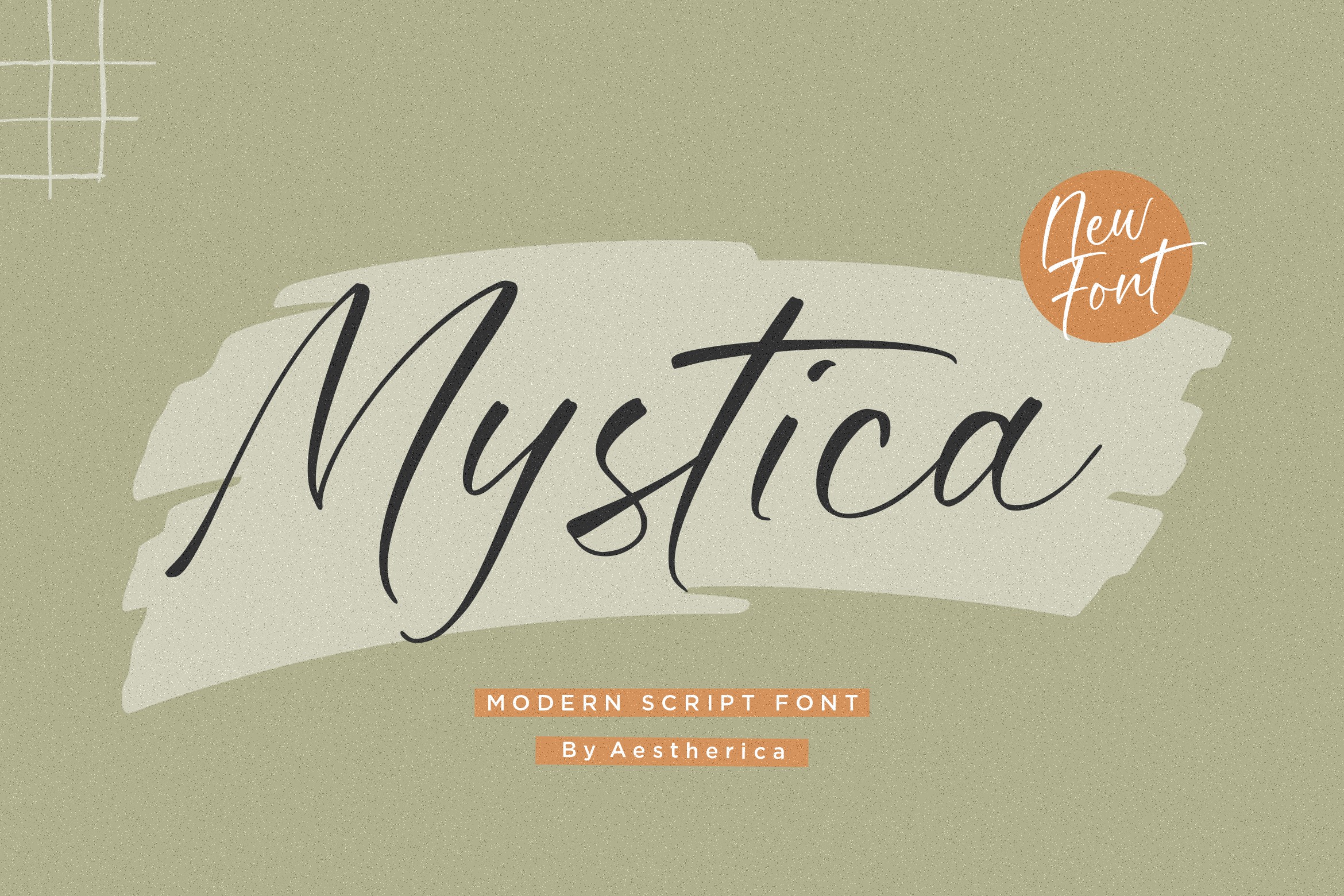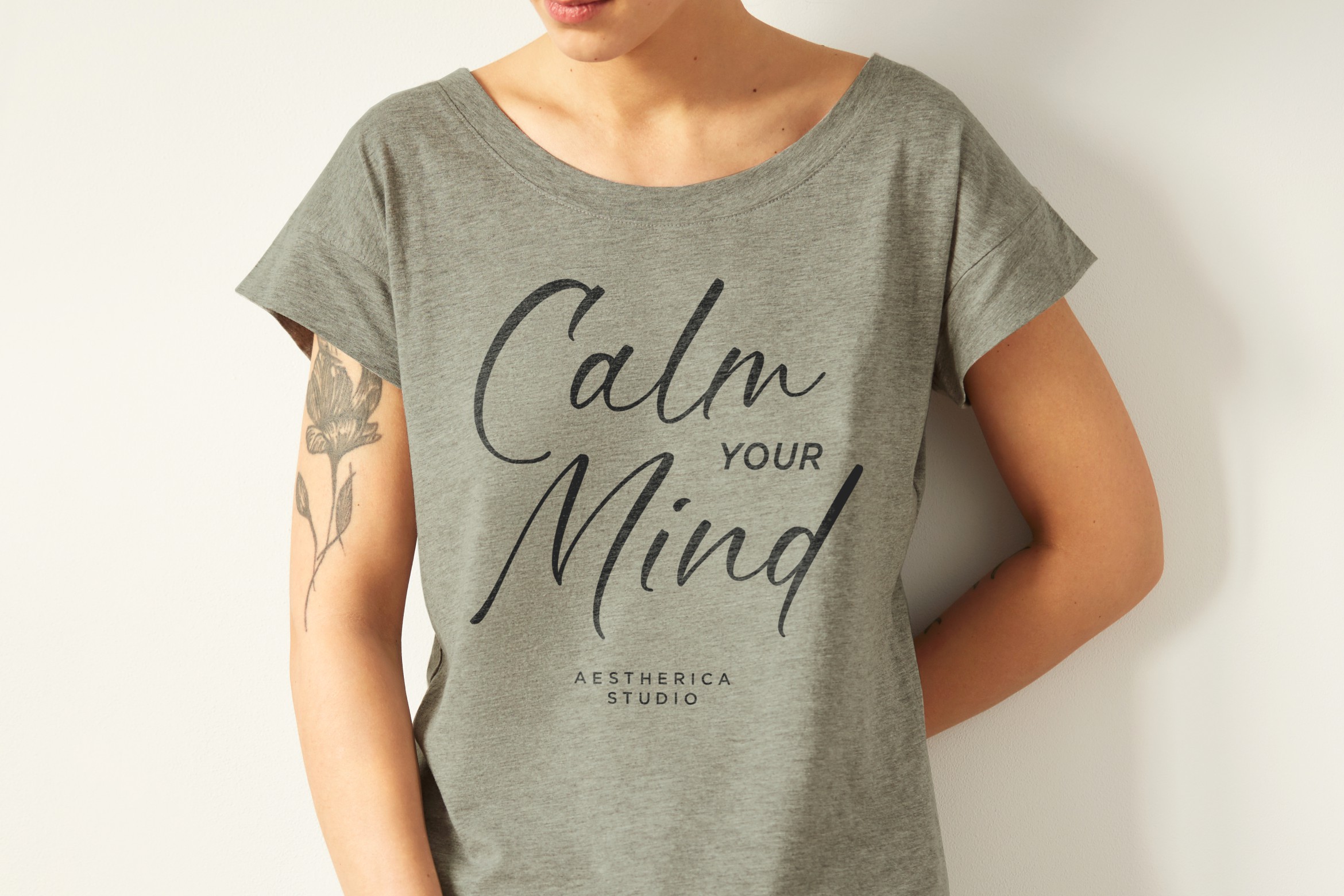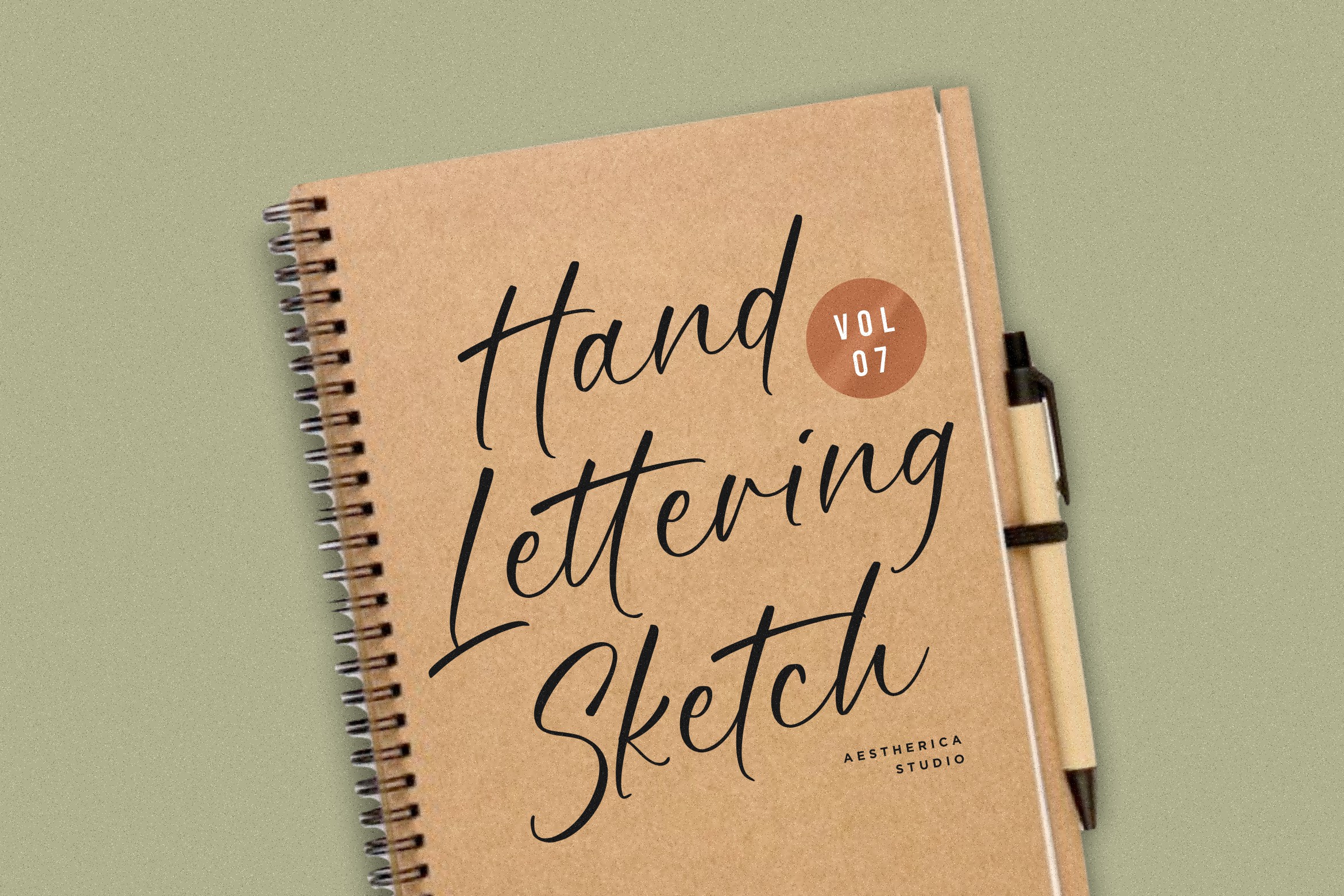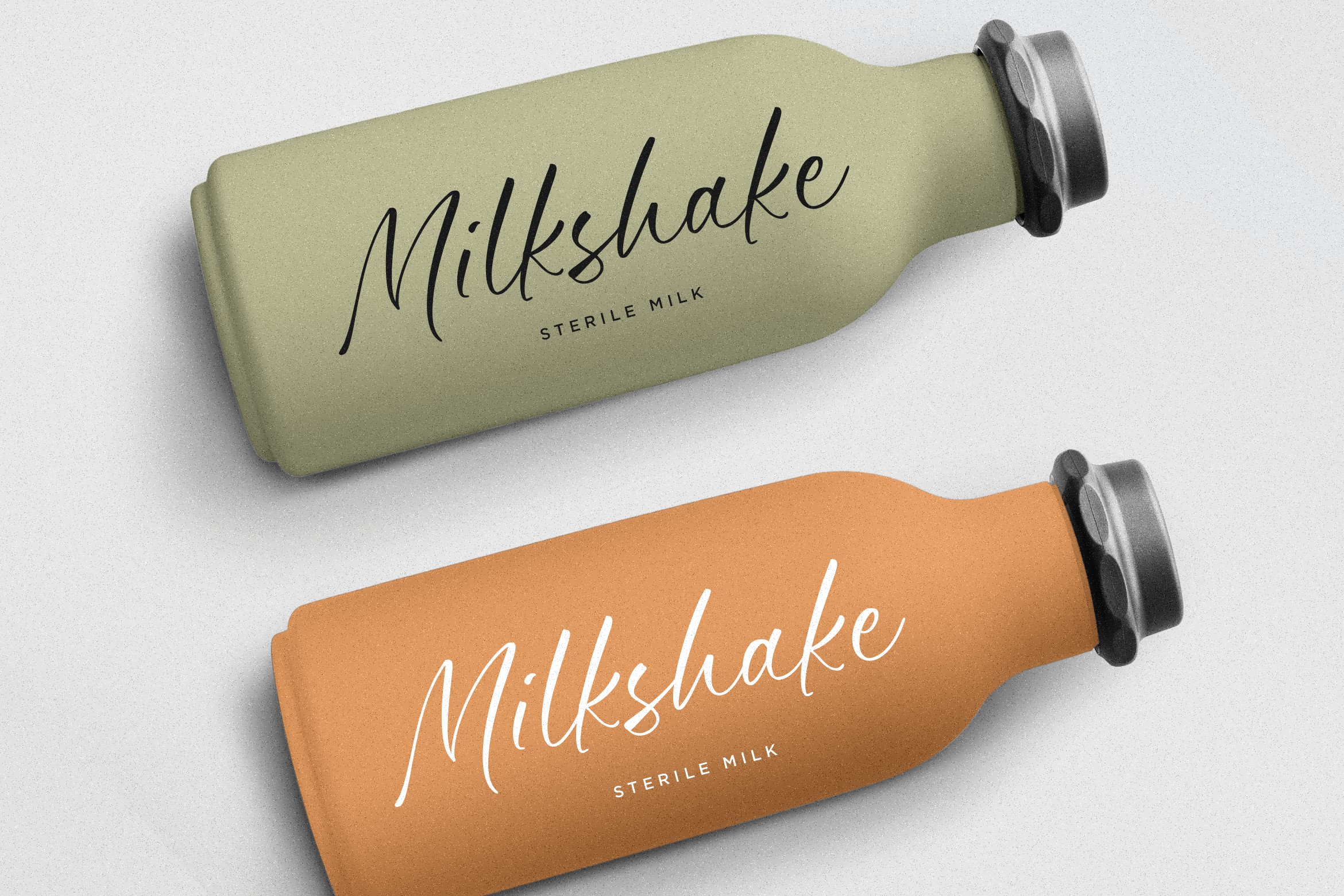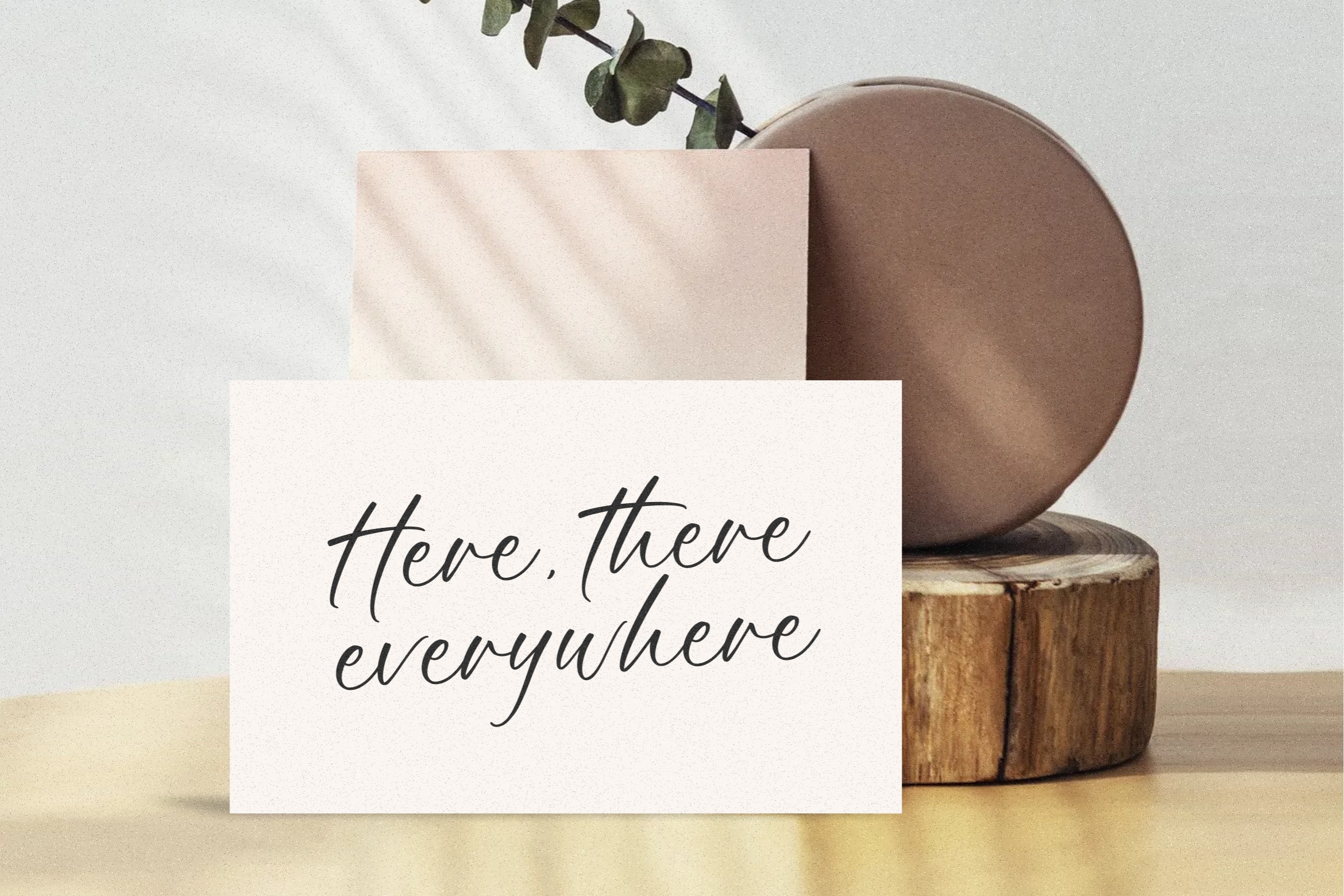
Mystica Font
Mystica Script Font is perfect for product packaging, branding project, megazine, social media, wedding, or just used to express words above the background.